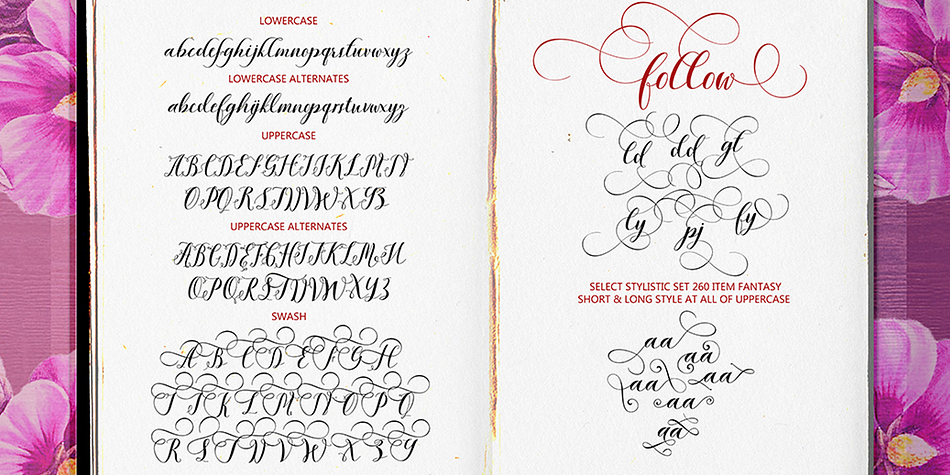
Salamanta Script
Salamanta Script is a script font published by Genesislab.
Salamanca Script is a beautiful modern calligraphy font.
It contains a complete set of lower and uppercase letters, assorted punctuation, numbers, and multilingual support.
The font also contains several ligatures and stylistic styles, an alternative set, incorporated swash stylistics (662 glyphs) as well as 481 alternate characters.
Salamanta Script is the right tool to add cute and whimsical handwriting to your project.
It is perfect for invitations, greeting cards, art typography, logo, letterpress printing, parties, graduations, birthdays, gathering, and all sorts of other design projects.